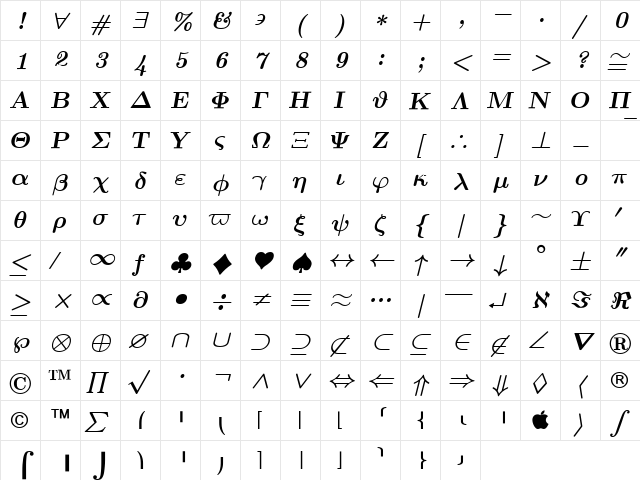
Euclid Symbol Bold Italic
| Foundry | Design Science, Inc |
| Designer | Donald Knuth, Richard Kinch, Paul Topping, Jim King |
Design Context for Euclid Symbol Typeface
Euclid Symbol offers clean, dependable letterforms without strong stylistic allegiance, making it a practical choice for designers who need flexibility. The slanted form adds forward momentum and visual energy. Its bold stroke weight gives it real presence on the page.